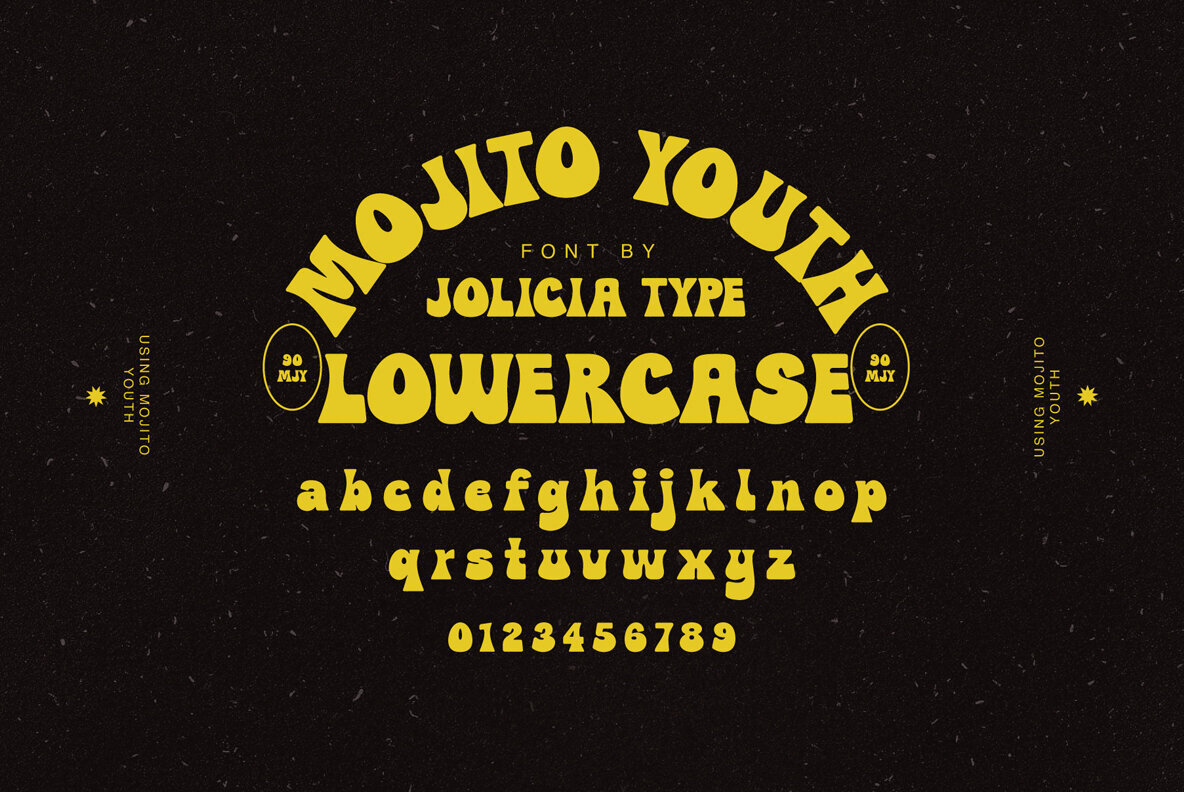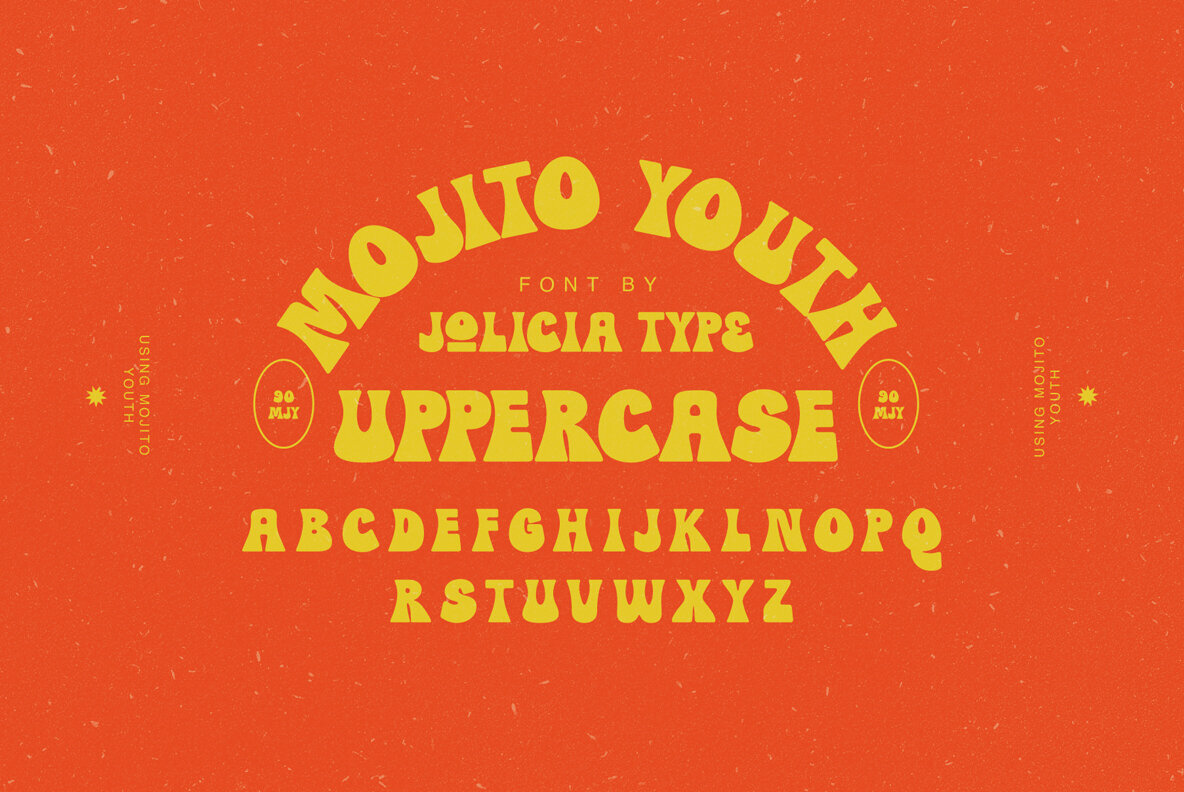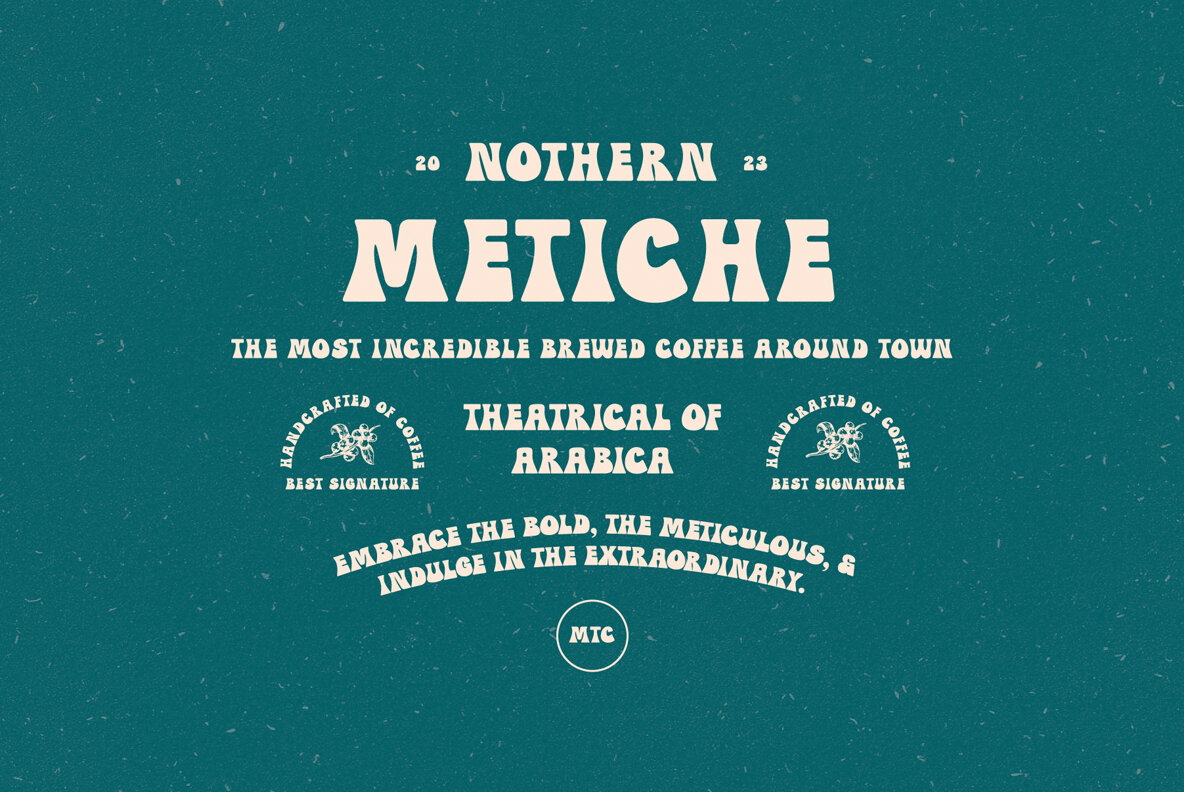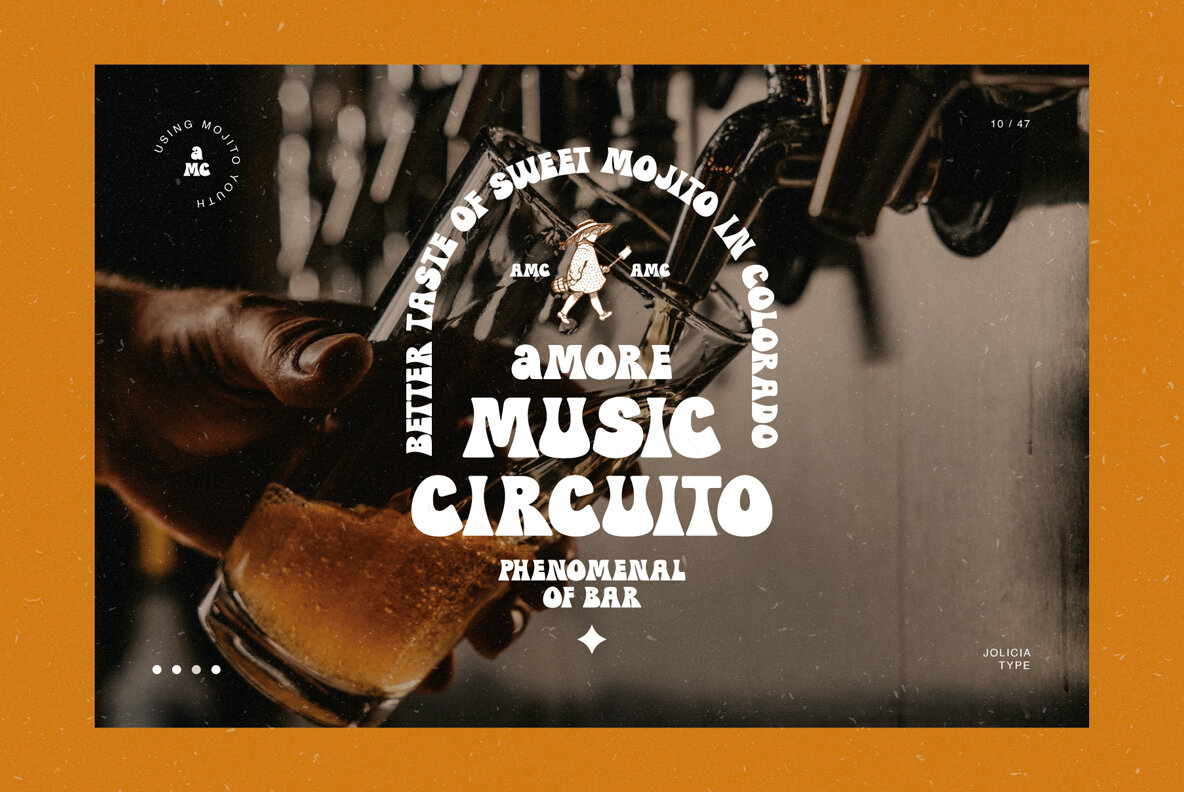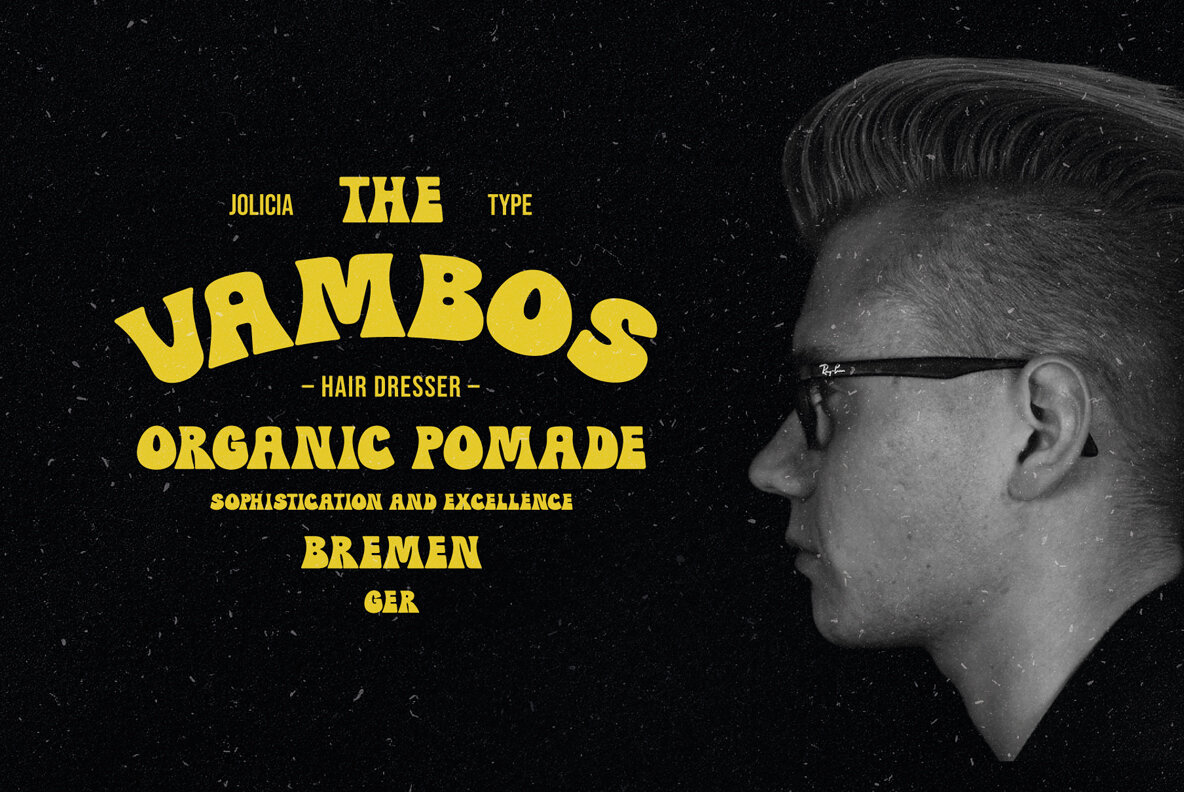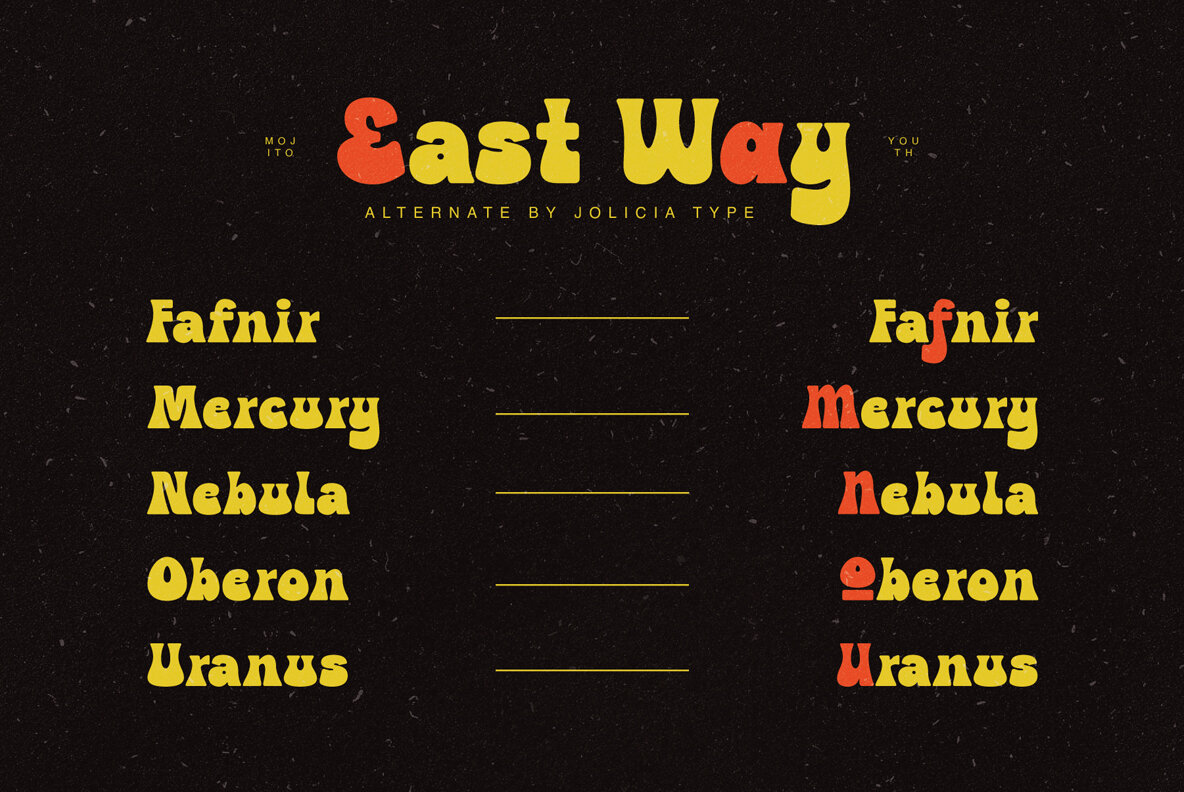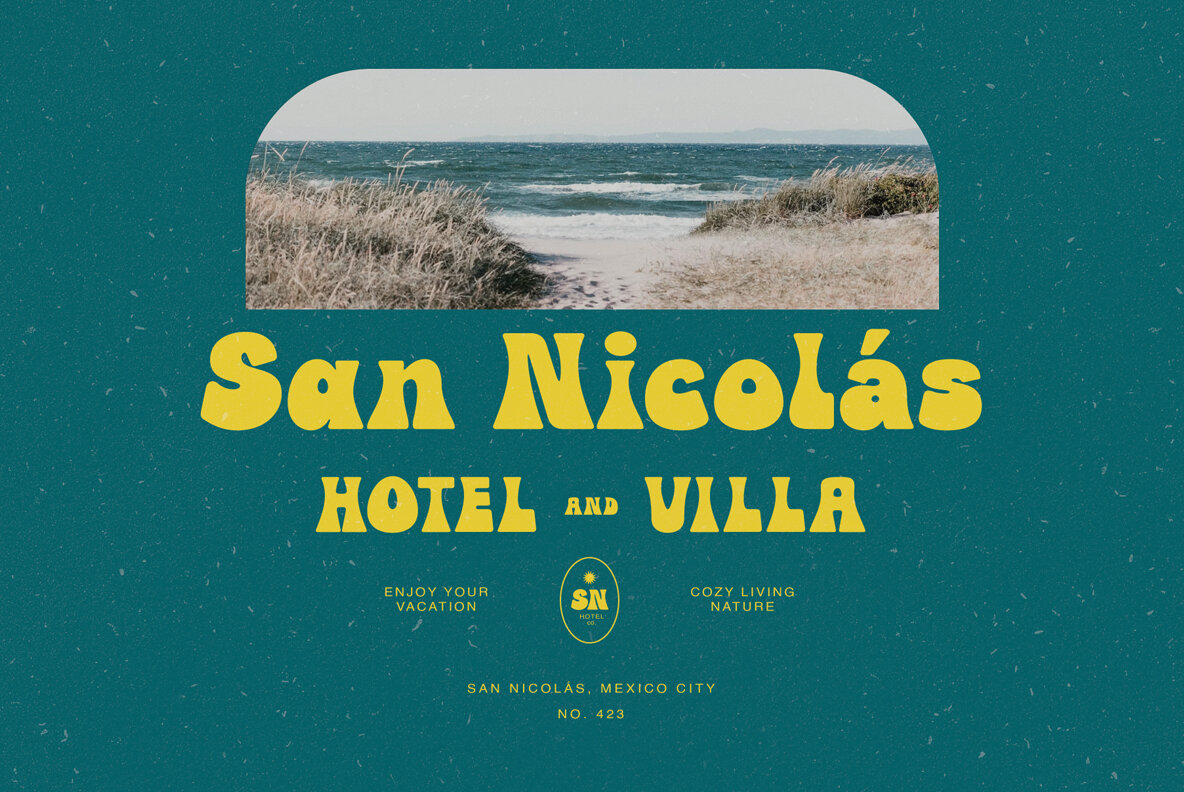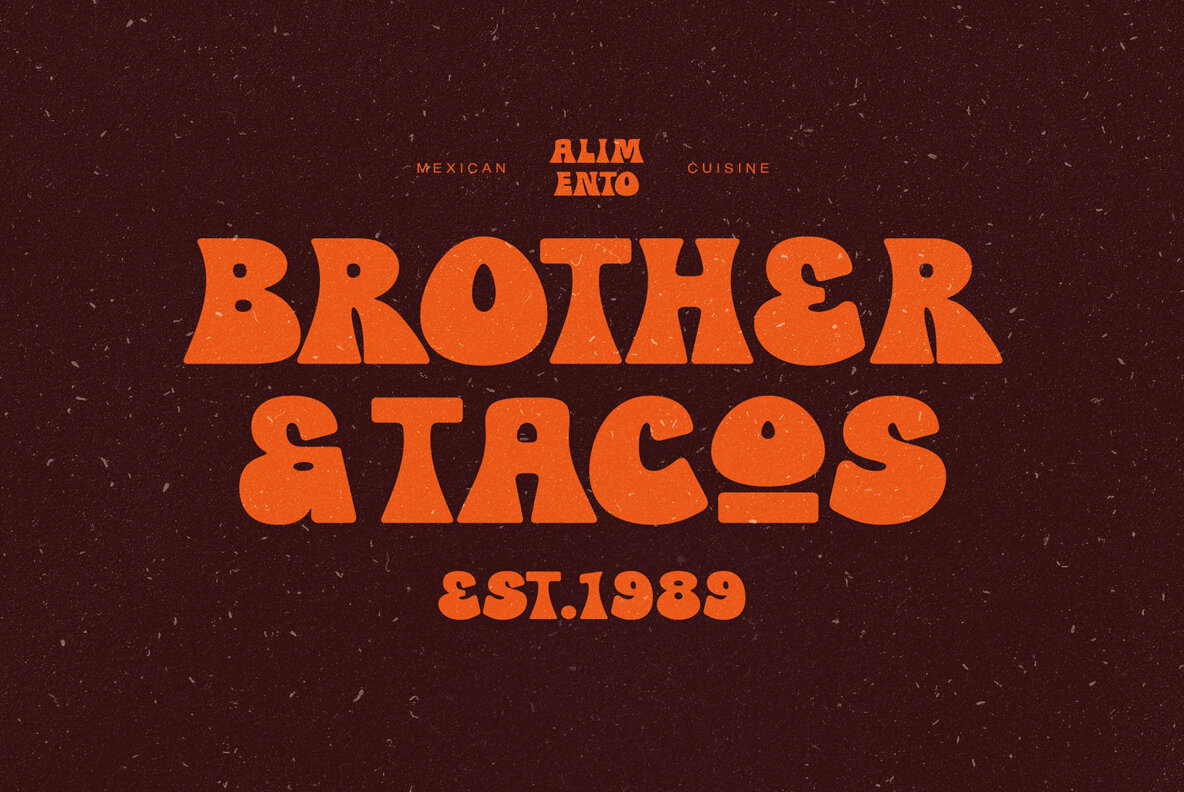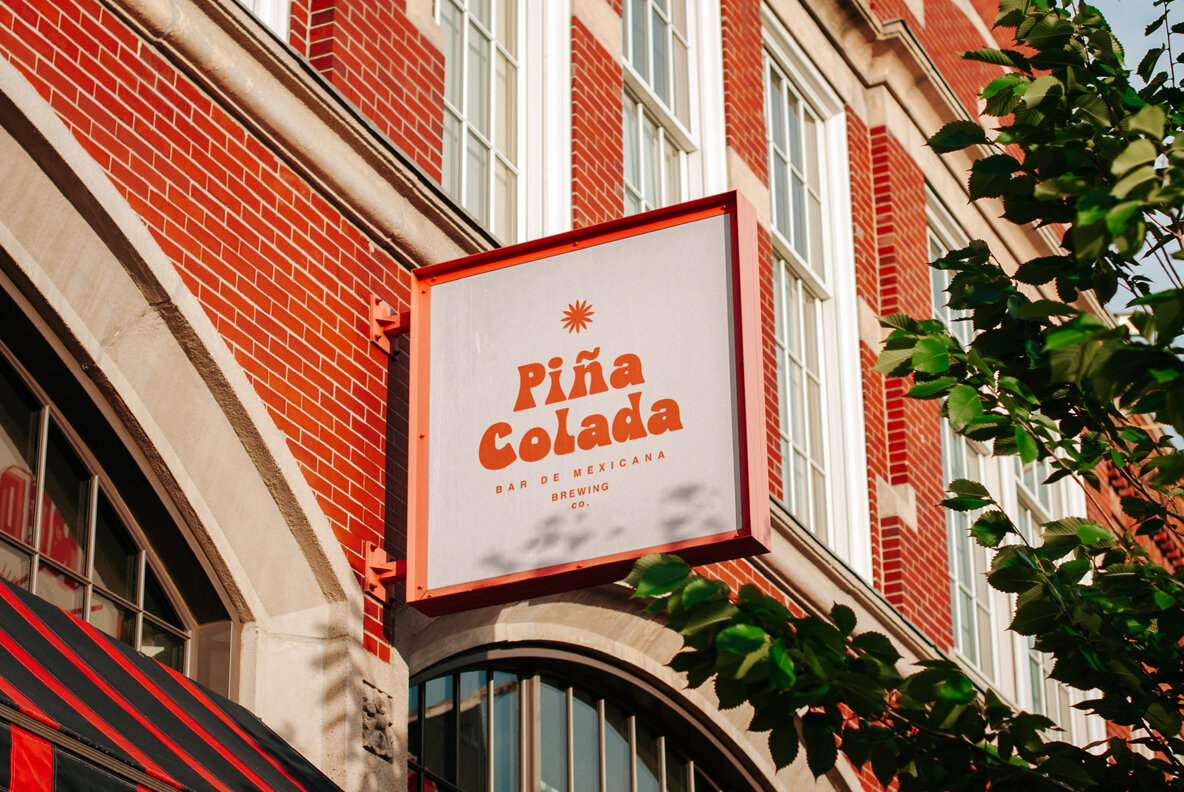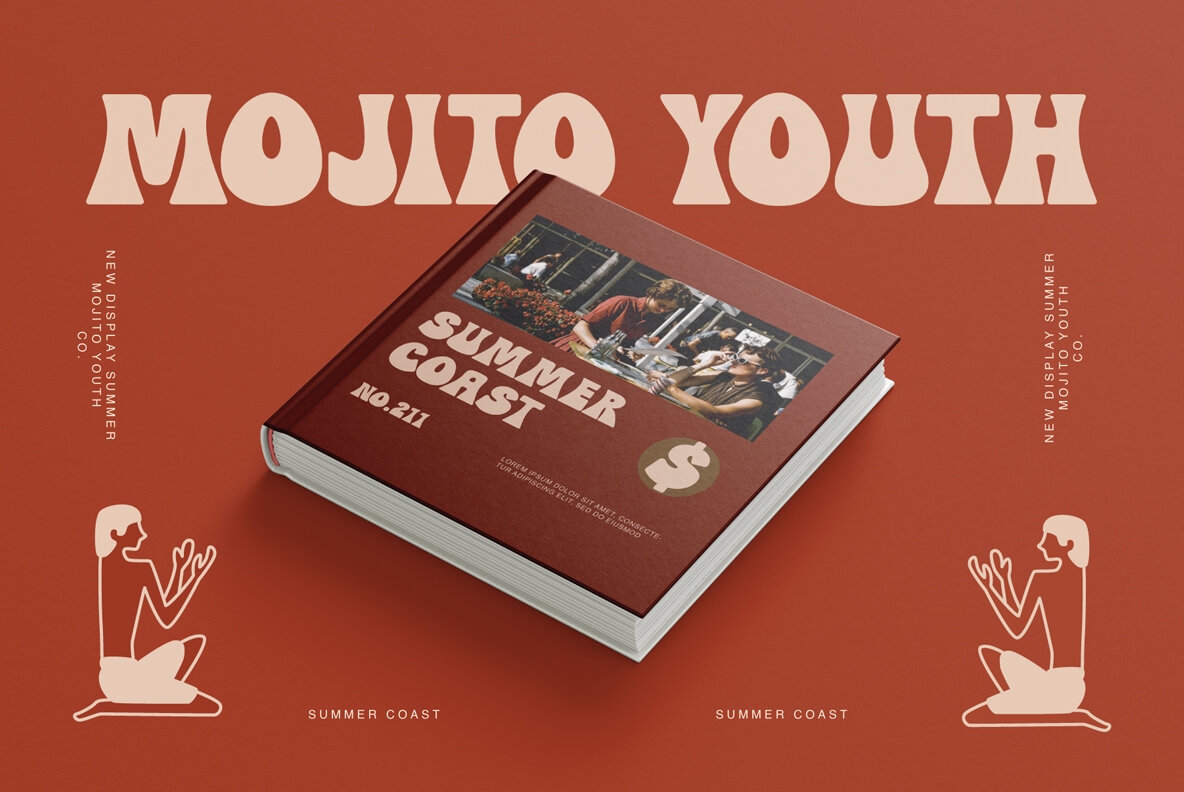
Mojito Youth Font
Mojito Youth Regular
Mojito Youth is a charming display font that combines the timeless charm of a vintage aesthetic with a vibrant retro spirit. This font was carefully crafted to evoke a feeling of nostalgia while exuding a youthful energy that aligns with contemporary design trends. Equipped with a modern touch, Mojito Youth exudes a cheerful and youthful elegance. This font strikes a balance between past and present, making it versatile for a variety of applications, from branding to product packaging. Mojito Youth reflects the authenticity of handmade writing. Irregularities and imperfections in the design contribute to its authentic vintage appeal. Let your creativity flow with the perfect blend of vintage charm and contemporary style with Mojito Youth.